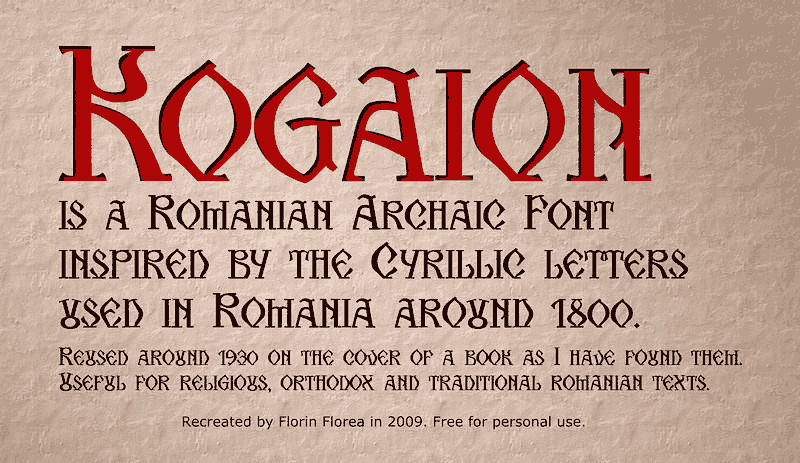
Font name: | Kogaion SC FR |
Categories | Foreign look, Various |
Author: | Florin Florea |
Note by Florin Florea | |
This is an old Romanian style typeface called "Arhaic Romanesc", based on Cyrillic alphabet that was used in Romania around 1500 until 1860 for Church Slavonic and Romanian texts. The old lettershapes were later used for the Latin alphabet preserving a sort of Romanian traditional feel. I have started this font (Kogaion) in 2009 (http://florinf.wordpress.com/2009/04/14/kogaion-arhaic-romanesc-ex-cali/). It is still a Work In Progress. It is a revival based on an old book cover (around 1930) and had only 10 letters as it was used in the title, I had to create 16 in the same style. I also added numbers and Romanian diacritics. Only for personal usage. |